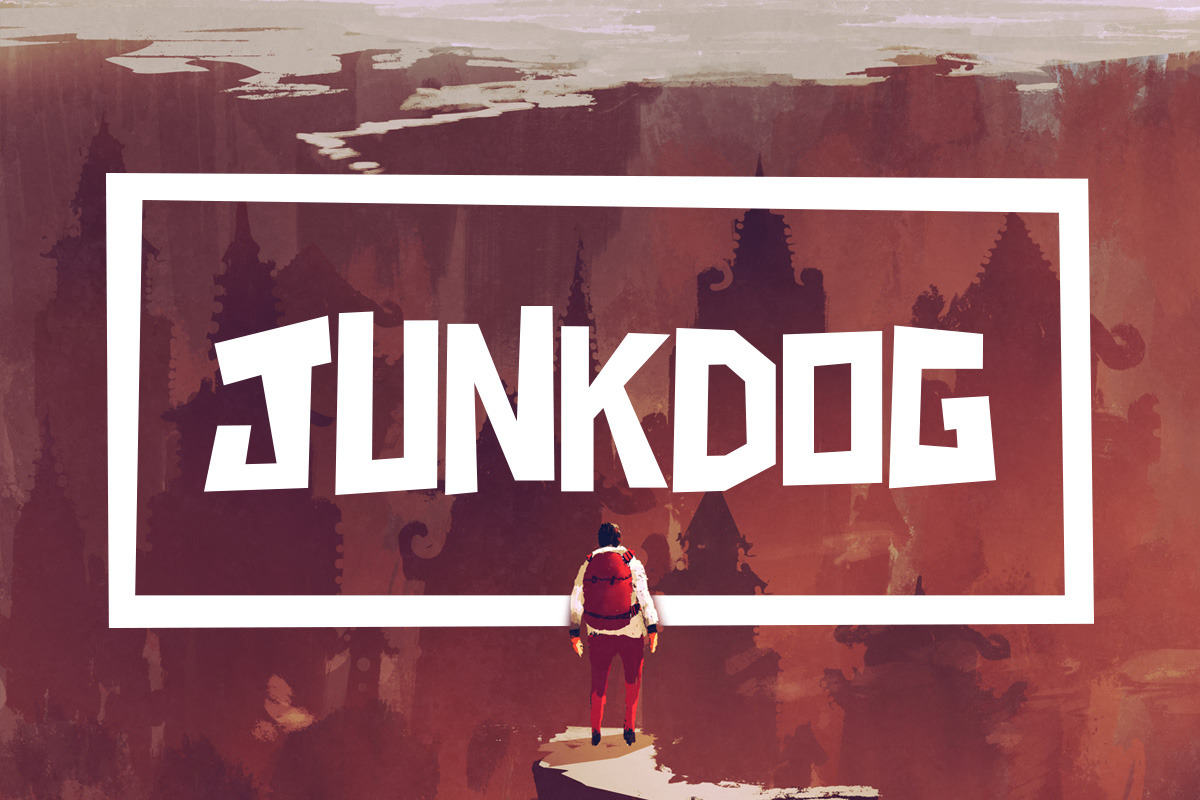
Junkdog Typeface
Junkdog is a blocky font with an attitude! It’s great for big titles and quotes, quite a few of the letters have alternate versions.
The font includes uppercase multilingual letters, alternate letters, numbers and punctuation.